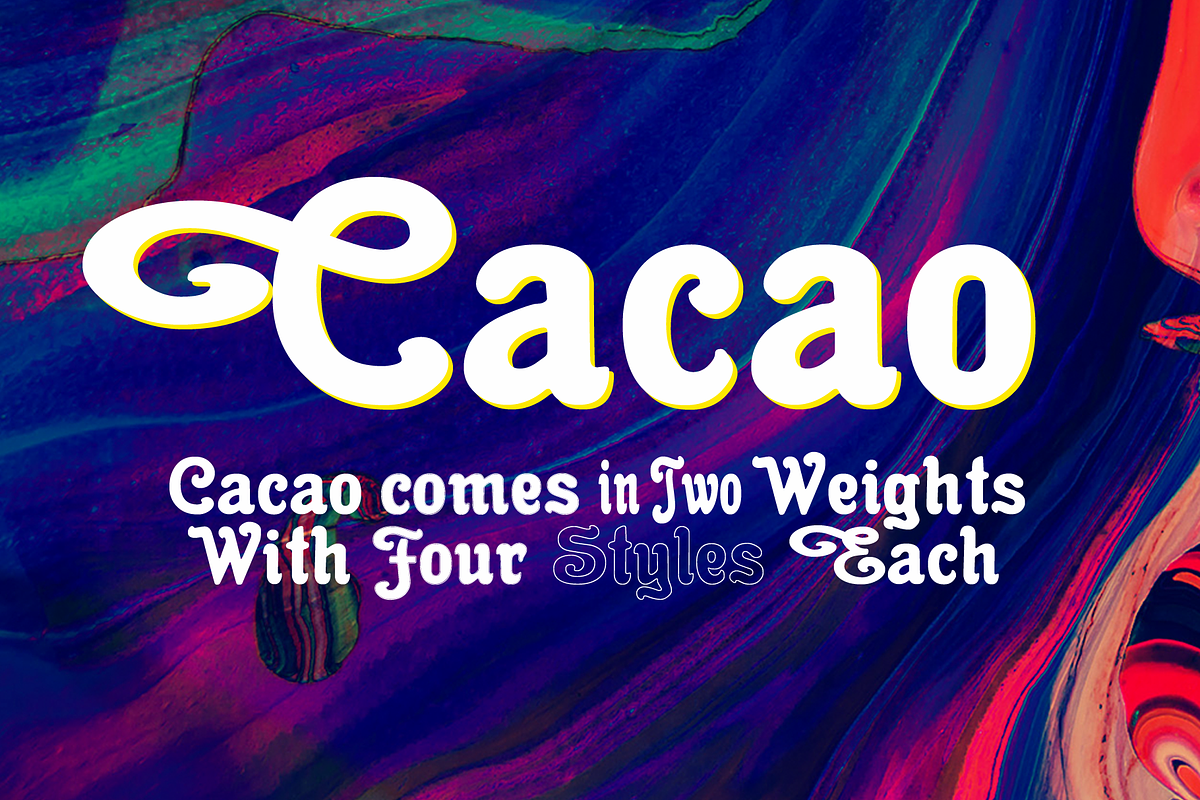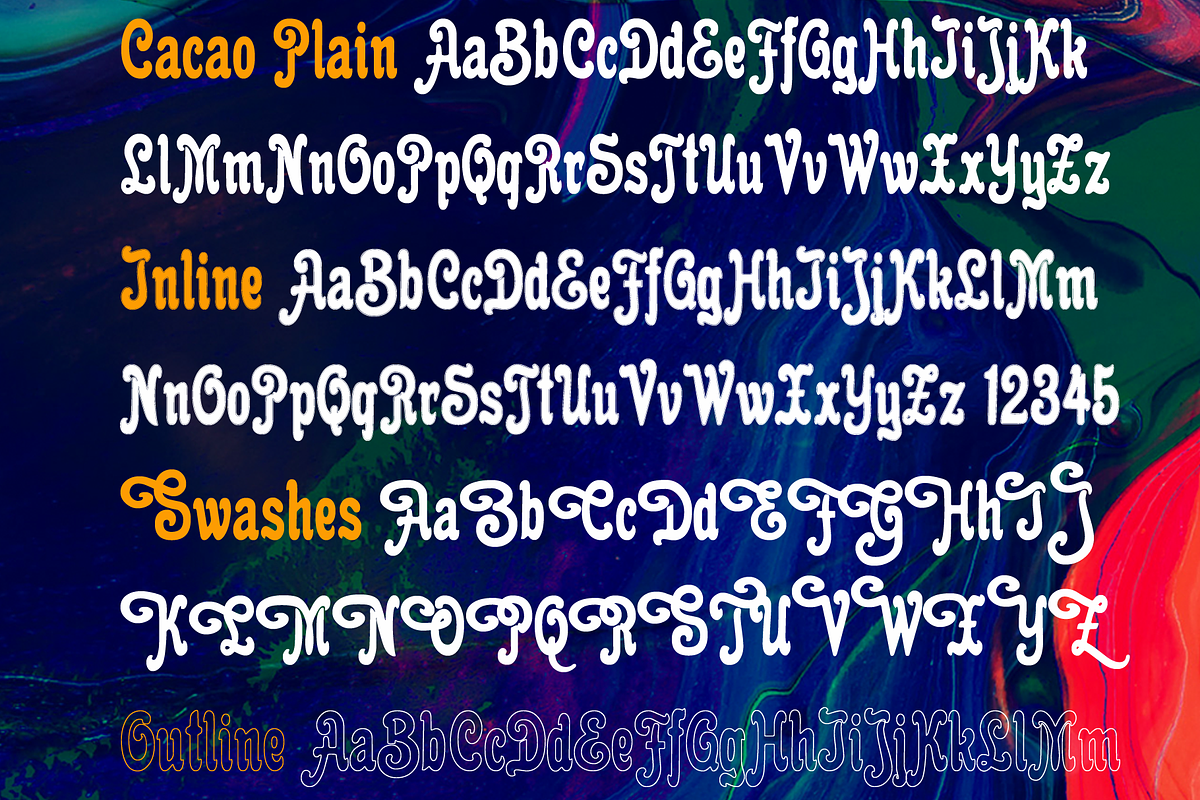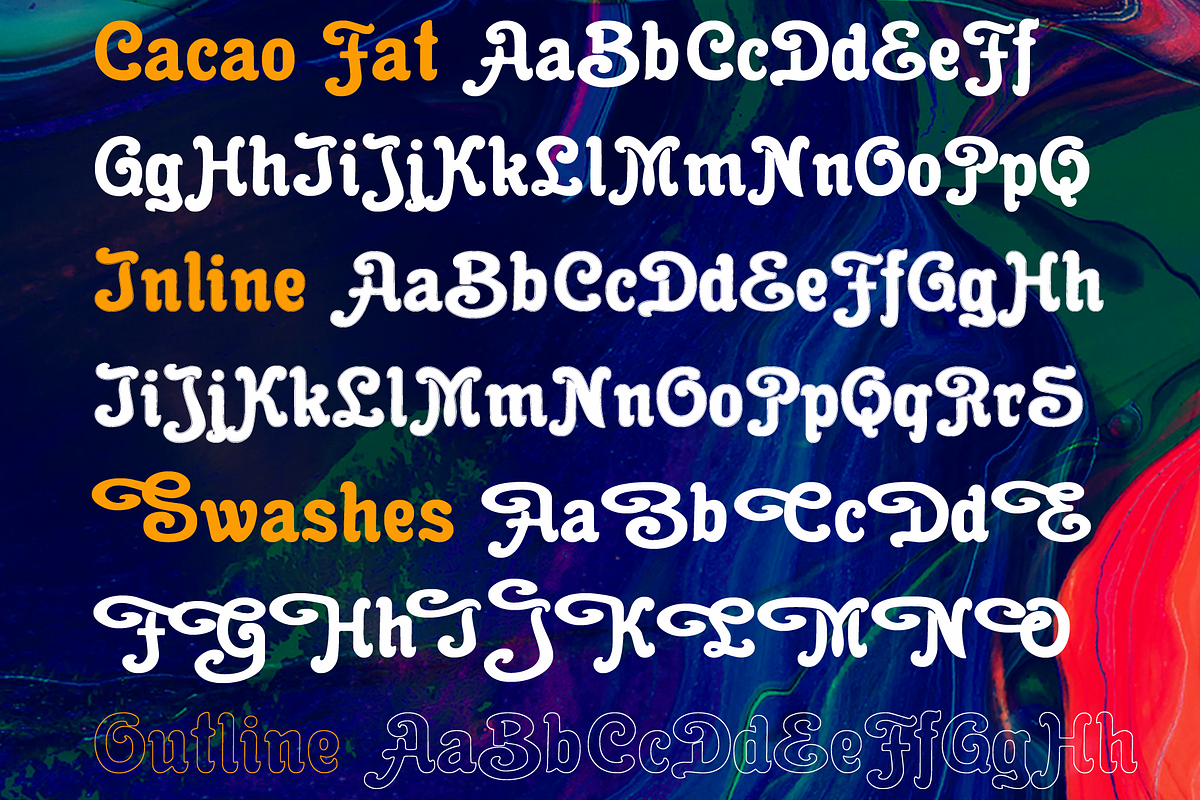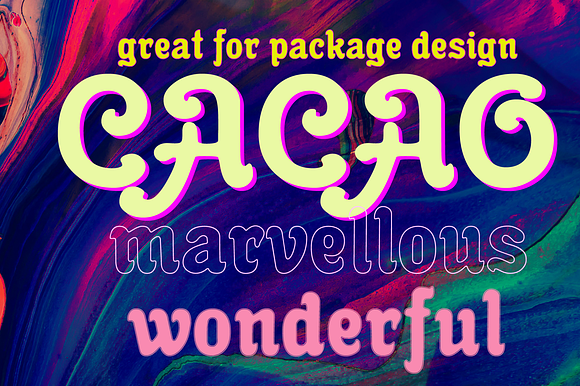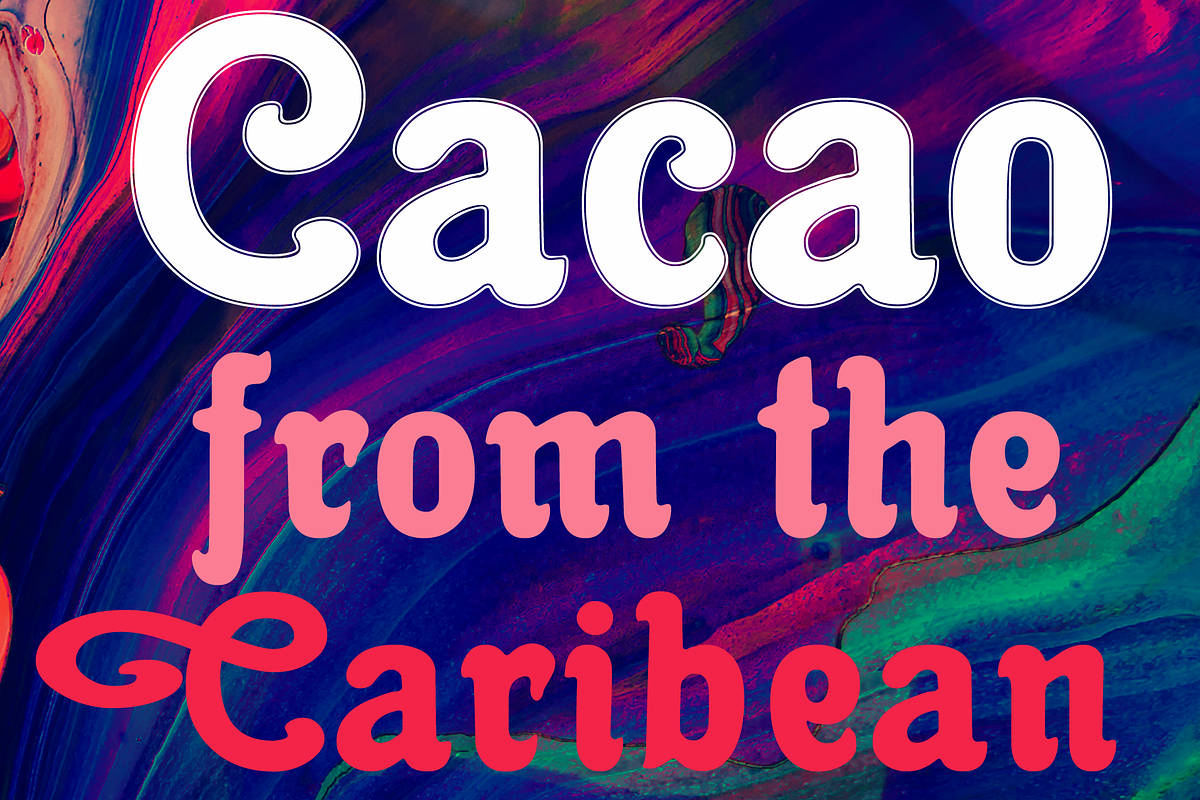
Cacao Font Packet
Cacao is another one of my »found fonts«”. I found this one in an old advertising for a French cocoa drink. Since I am a enormous lover of cocoa, I will give you my recipe for a normal coffee mug full of delicious hot cocoa. Mix three heaped teaspoons of sugar with one and a half to two teaspoons of finest cocoa powder. Then add a little cold milk, stir, and so on until you have a mushy creamy consistency. Now slowly add - always stirring - boiling hot water til the cup is almost full. Top with a little liquid cream and enjoy! If you have a package design job, use my »Cacao« font and stir in some creativity. Your sweet-tooth designer, Gert Wiescher. Enjoy!
- If you have a package design job, use my »Cacao« font and stir in some creativity.